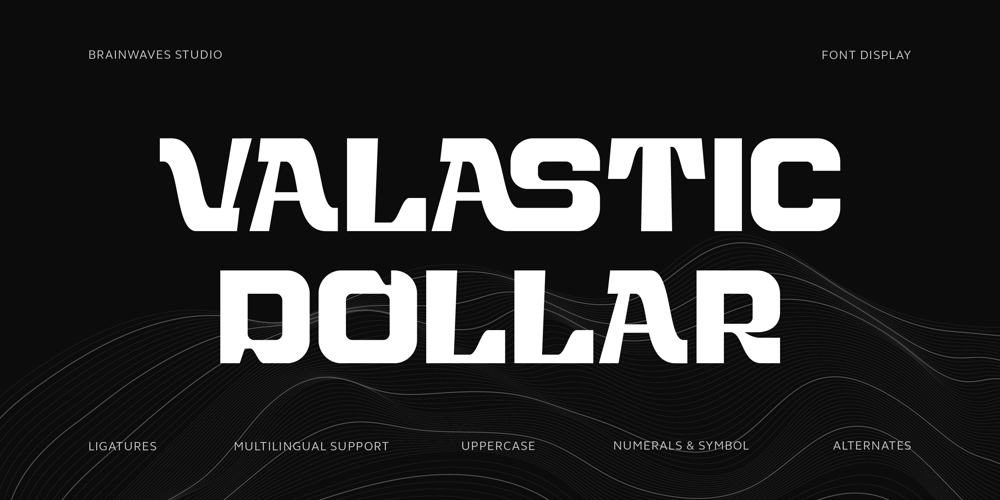
Valastic Dollar Font Family was designed by Elhaq Farid and published by Brainwaves Studio. Valastic Dollar contains 2 styles and family package options. Valastic Dollar is a modern geometric font with a unique and extraordinary touch. Designed to stand out, its bold shapes bring a fresh and contemporary vibe to any project. Perfect for branding, logos, posters, and digital designs, Valastic Dollar combines modern forms with striking curves for a bold and versatile style. Elevate your designs with this unique typeface that promises to leave a lasting impression!